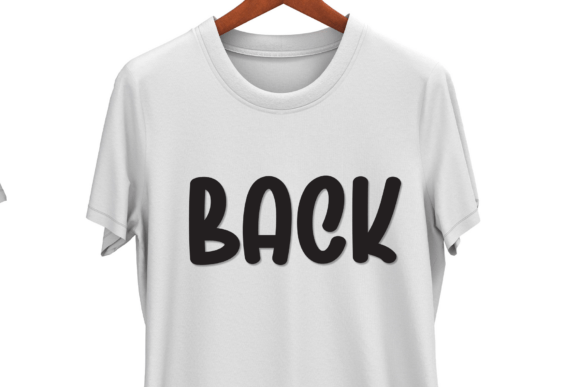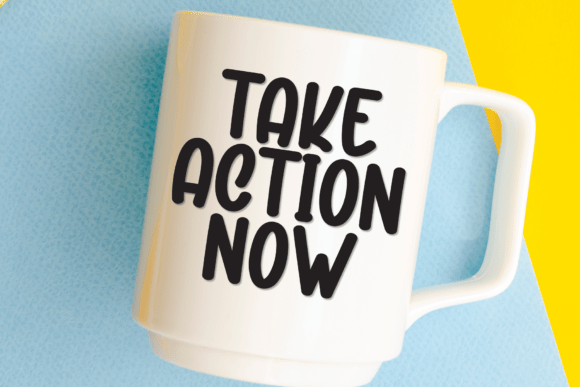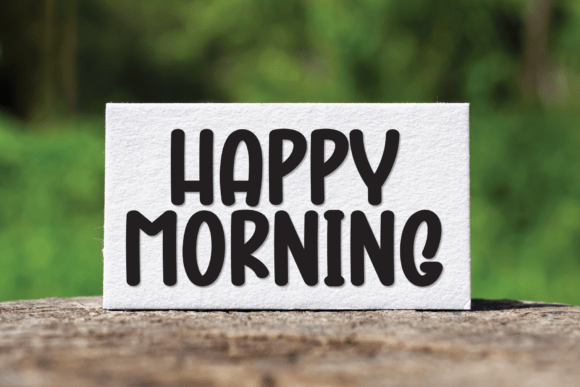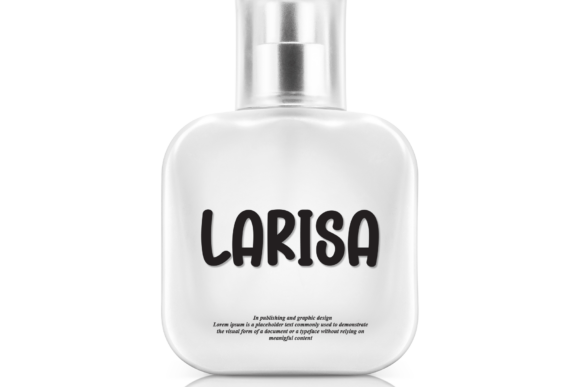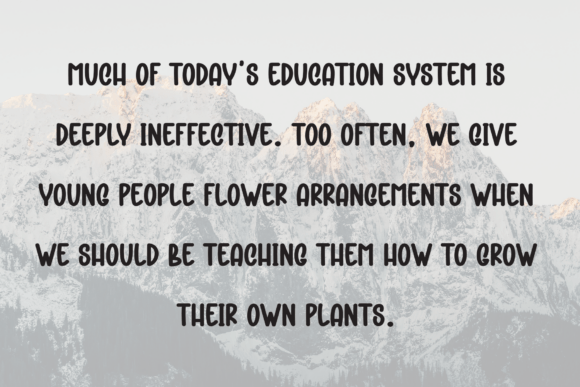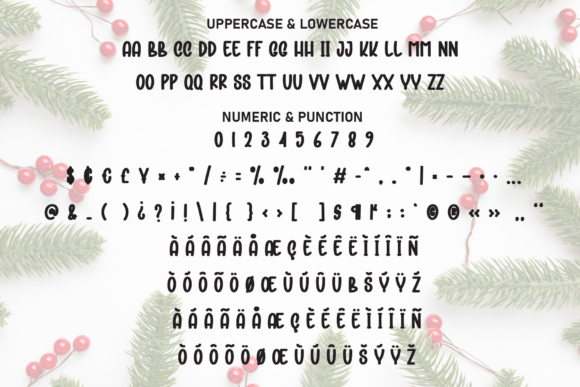
A Spark of Creativity: Introducing Holly Christmas Font
As designers, we’ve all had those moments when a font speaks to us, sparking an idea that just won’t let go. For me, it was a snowy winter morning, sipping hot cocoa and brainstorming ideas for a client’s holiday campaign. And then, it hit me – the perfect font to capture the essence of the season: Holly Christmas Font. This charming and approachable handwritten display font is more than just a typeface – it’s a key to unlocking the warmth and friendliness that makes any design project shine.
Whether you’re crafting wedding invitations, greeting cards, or any other design project that needs a dash of cheer, Holly Christmas Font is the perfect fit. Its delightful and amusing nature makes it a valuable asset for designers looking to add a touch of whimsy to their work. With Holly Christmas Font, you’ll be able to infuse your designs with a sense of joy and playfulness that’s sure to leave a lasting impression.
Holly Christmas Font Key Features
- Unique Characteristics: Holly Christmas Font features a festive and elegant design, perfect for holiday-themed projects, including Christmas cards, invitations, and gift tags.
Holly Christmas Font Review
Overall, I think the Holly Christmas Font is a charming addition to any holiday-themed project. ✨ It has a unique, whimsical feel that’s perfect for creating a festive atmosphere. The font’s irregular shapes and quirky details add a touch of personality that’s hard to find in more traditional holiday fonts.
- The font’s eclectic feel makes it perfect for creating a unique holiday look.
- The bold lines and intricate details make it easy to read, even at smaller sizes.
- The font is highly customizable, making it easy to adapt to different design needs.
- The font may not be suitable for projects that require a more traditional or formal look.
- The font’s irregular shapes may be difficult to use for projects that require precise alignment or spacing.
- The font may not be compatible with all font rendering engines, which could lead to issues with certain devices or browsers.
- ⚠️ Some of the characters may not be perfectly formed, which could be a concern for projects that require high-quality typography.
Overall, I think the Holly Christmas Font is a great choice for projects that require a unique and whimsical look. While it may have some limitations, the font’s customization options and charming feel make it a great addition to any holiday-themed design.
Getting the Most Out of the Holly Christmas Font